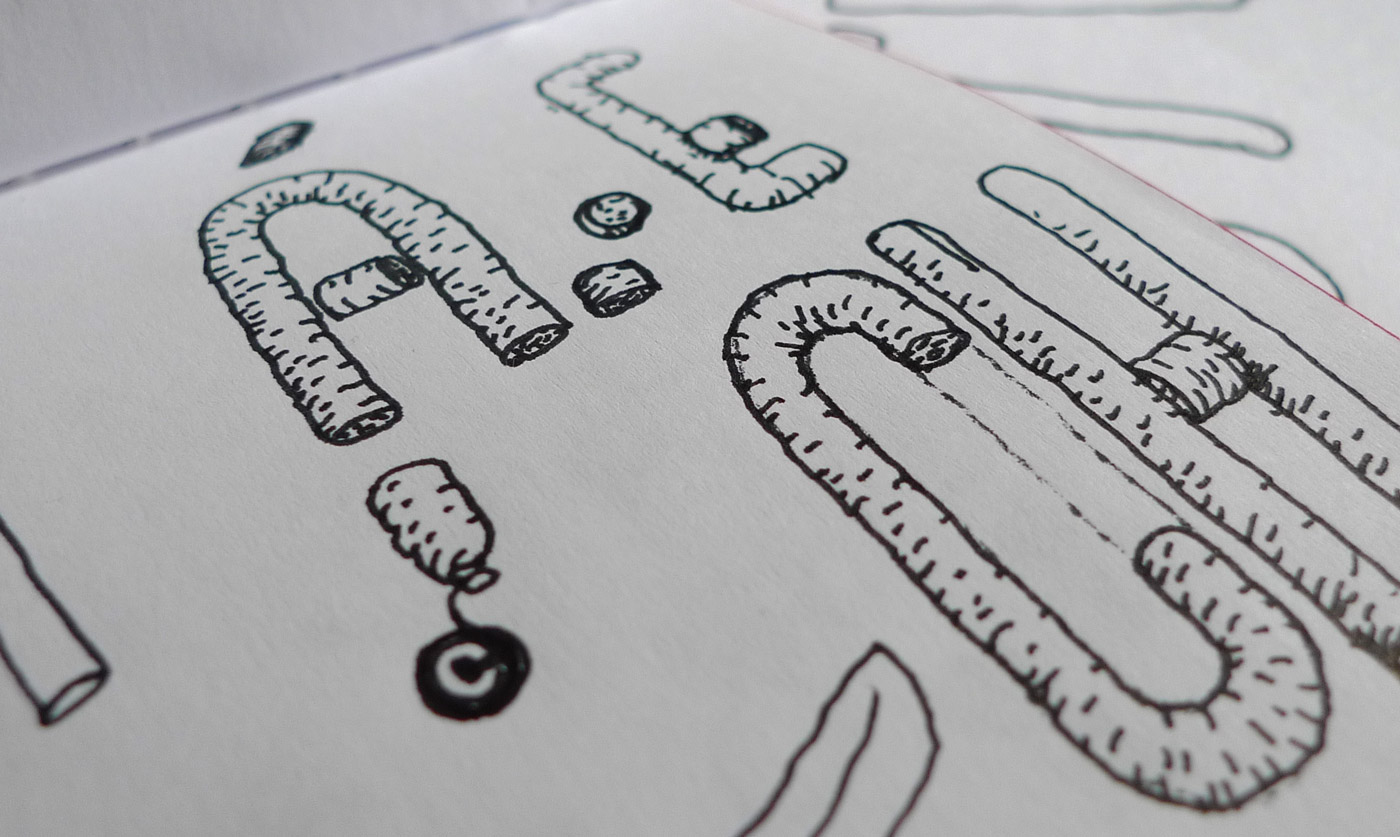
Choriza
Choriza is a multilayered font and a kind of spicy spanish sausage. With three layers you can colour any salami, salchichen, sausage, wurst or pudding. Chorizo also means burglar in spanish, so it’s some sort of typographical joke about our beloved politicians.
This typeface is only an useless and funny experiment, and I did it because the usual mix of ideas and motivations that drive me to make typefaces.
First of all, I had this stupid idea of joking about modular fonts taking pictures of cutting pieces of chorizo, an spicy spanish sausage with a curvy form well suited for that purpose.
Second, I had printed with chromatic wooden type in our letterpress workshop and liked the idea of making a color digital typeface.
Also, I’m part of a group of typeheads called Lletraferits (wounded by letters). We met every spring in a big countryside house for have fun eating, drinking and talking about typography. Every member can make a little lecture about anything, and sometimes type designers show spoilers of their future releases. That year I wanted to make some weird lecture to a bunch of semi drunk colleagues, but I needed a theme.
So, I had that Eureka moment: The chorizo idea could be a digital typeface and It would need shadows and colors so I would learn about multilayered type in a very simple way.
And, most important, Chorizo means Thief in informal spanish, and in that moment Spain’s politics was ravaged by corruption (and still is), so I though in a Lletraferits lecture talking about a my next typeface showing those slides with big names of politicians and that was enough for me to start drawing.
Choriza is a multilayered font with Background, Shadow and Hairline layers to colour any kind of tasty sausage.
It comes with Choriza Sans, with its cutted ends to make a sans serif version.